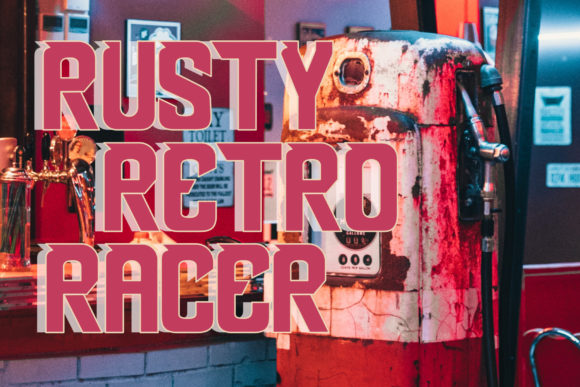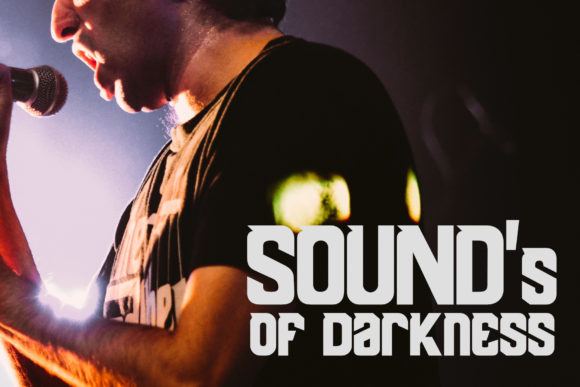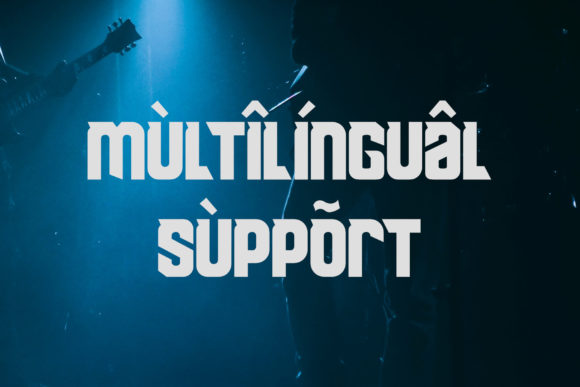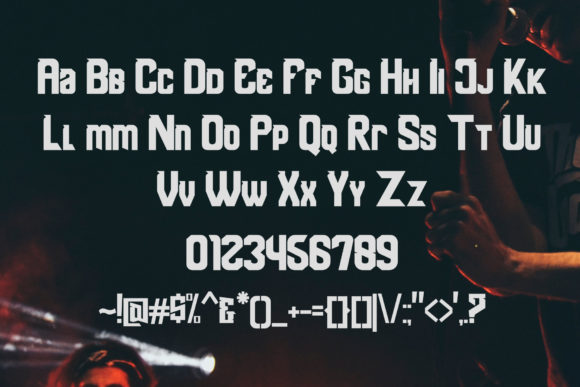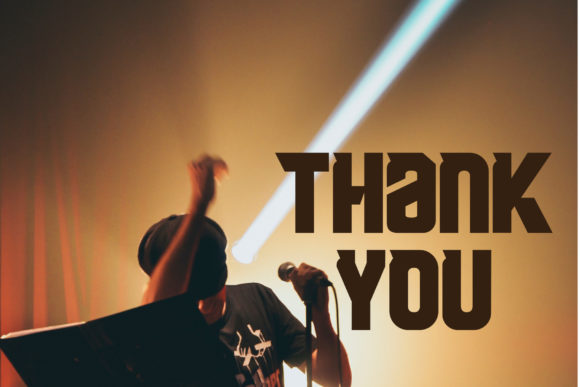
Introduction to Peakers Font
Have you ever stared at a blank canvas, struggling to bring your creative vision to life? The perfect design resource can be the key to unlocking your full potential. For those seeking a unique touch, the Peakers Font is an excellent choice. This modern, bold, and thick lettered display font is designed to make a statement, featuring uniquely shaped letters that demand attention.
As a valuable addition to any designer’s toolkit, the Peakers Font offers high-quality results, perfect for projects that require a distinct touch. Whether you’re working on a creative project with a transparent background or designing a logo that needs to stand out, this font is sure to deliver. With its versatility and unique style, the Peakers Font is an essential resource for designers looking to elevate their work.
Key Features of Peakers Font
- High-quality design with a transparent background, ideal for creative projects
- Features a unique, eye-catching design that can add a touch of personality to any project
- Perfect for use in logos, branding, and other design elements where a high-quality font is required
- Includes a range of characters and glyphs, including uppercase and lowercase letters, numbers, and punctuation marks
Honest Review: Peakers Font
I recently had the chance to work with the Peakers Font in a creative project, and I must say it’s a high-quality design resource that exceeded my expectations. The transparent background is a nice touch, making it easy to layer with other elements.
- ✨ The font’s clean and modern design makes it perfect for a variety of creative projects.
- ✨ The font’s versatility allows it to be used in a wide range of applications, from logos to website typography.
Overall, I was impressed with the Peakers Font and would definitely recommend it to designers looking for a high-quality, free design resource.
Tips for Getting the Most Out of Peakers Font
Peakers Font is a high-quality font with a transparent background, making it perfect for creative projects that require a clean and modern look. To get the most out of it, use it in conjunction with other design resources to create a cohesive and visually appealing design.
Common Use Cases for Peakers Font
Peakers Font is commonly used in logos, brochures, business cards, and other marketing materials that require a professional and modern look. It’s also a great choice for creative projects such as graphic novels, comics, and children’s books.